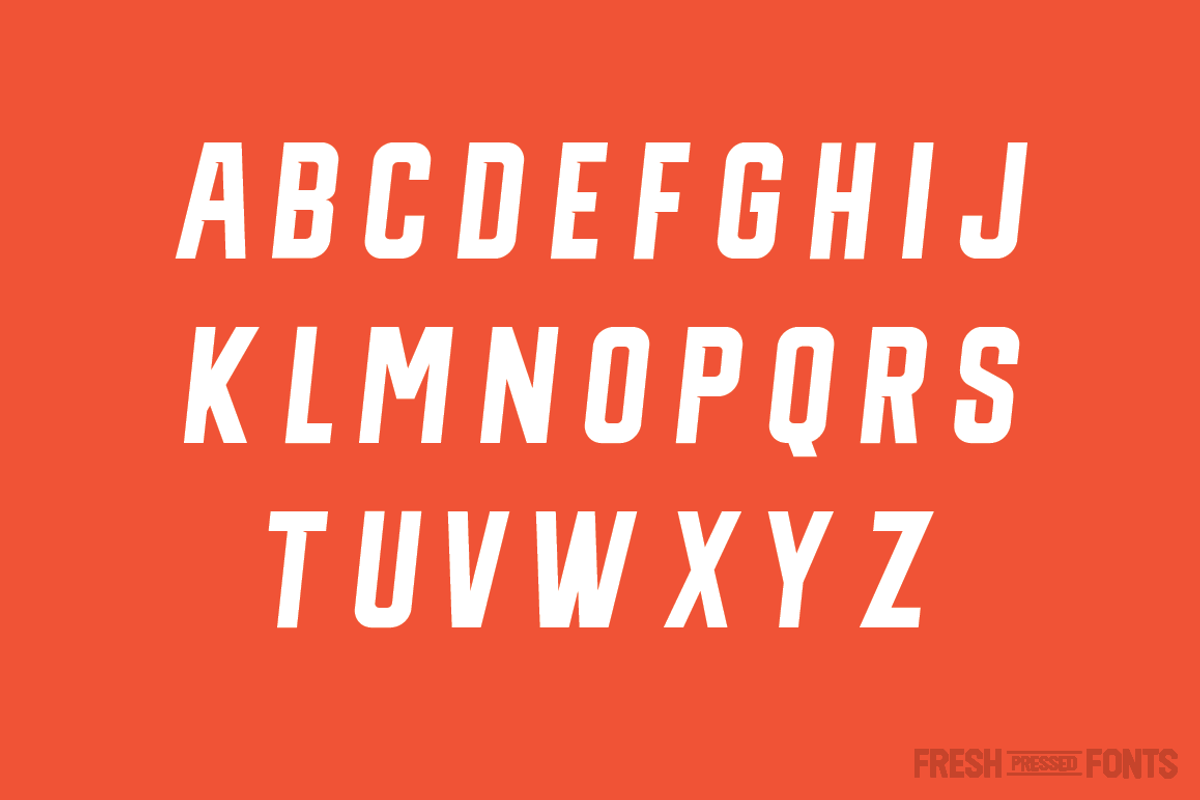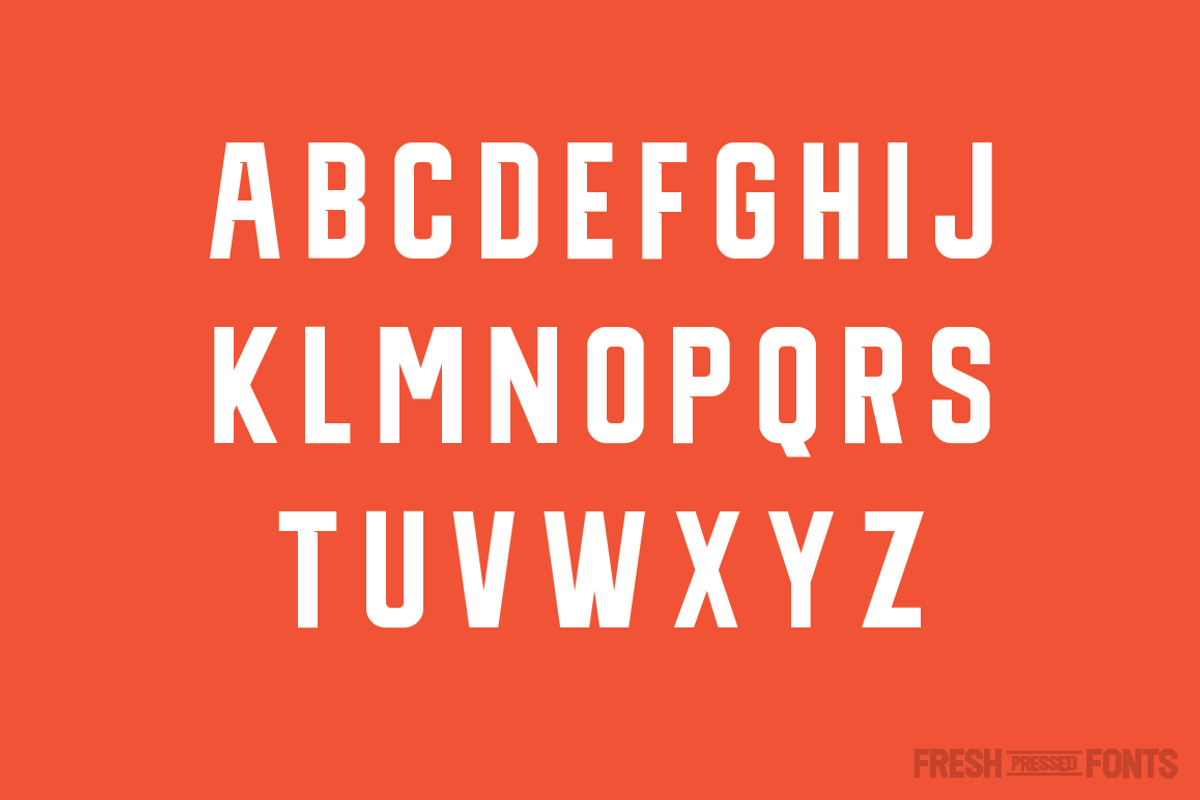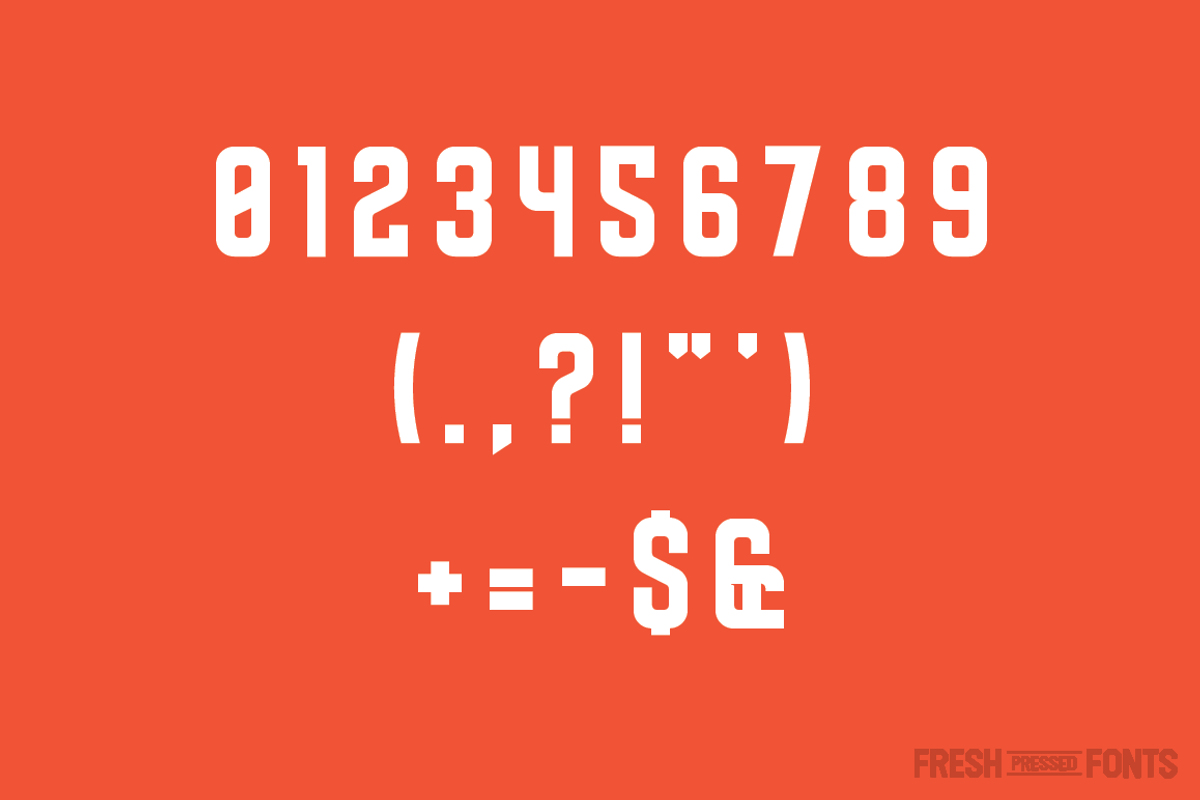
Grip2X | Regular + Oblique
Grip2X | Regular + Oblique by Fresh Pressed Fonts is a font selected for branding, posters, packaging, typography.
- Grip2X comes in a Regular and Oblique style, with 26 standard characters, numbers 0-9, and several essential glyphs.
- Grip2X Regular
- Grip2X Oblique
Grip2X | Regular + Oblique by Fresh Pressed Fonts fits naturally into Branding, posters, packaging, typography.